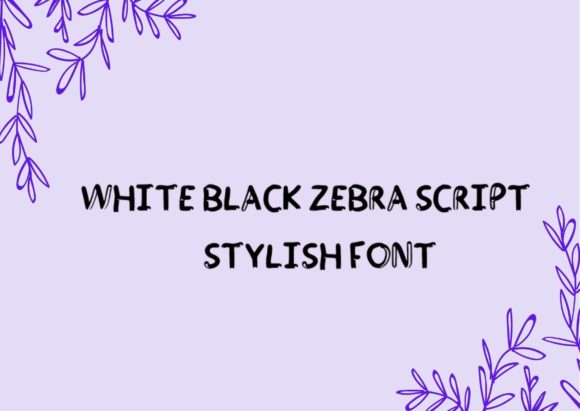
Dive into the captivating realm of White and Black Zebra Font, a display font that epitomizes creativity and versatility. Created by the artistic minds at CREATILORY, this font is a visual masterpiece waiting to be unleashed upon your designs.
With its striking black and white zebra stripes, White and Black Zebra Font exudes a sense of untamed beauty and elegance. Its bold and captivating characters command attention, making it the perfect choice for logos, headlines, and any design element that demands impact.
Whether you're a seasoned designer or just starting your creative journey, White and Black Zebra Font is an essential addition to your font collection. Its ability to transform ordinary text into captivating works of art makes it a must-have for anyone seeking to elevate their designs.
Unleash your creativity and let White and Black Zebra Font guide you to design greatness. Its endless possibilities will ignite your imagination and leave you craving more.